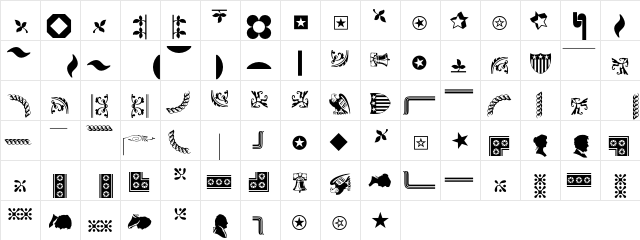
Borders Ornaments P01 Regular
Design Context for Borders Ornaments P01 Typeface
Borders Ornaments P01 is built around its visual character rather than neutral utility — its distinctive forms are designed to make an impression at display sizes.
Font Pairing: Pair with a clean neutral sans-serif for body copy to let Borders Ornaments P01's character lead without overwhelming the composition.
Pro Tip: Treat Borders Ornaments P01 as the centrepiece of your typographic hierarchy. One strong heading set in a decorative face can carry an entire layout.